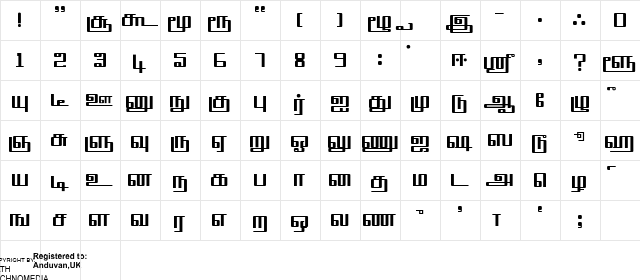
TML Square Plain
Design Context for TML Square Typeface
TML Square offers clean, dependable letterforms without strong stylistic allegiance, making it a practical choice for designers who need flexibility.